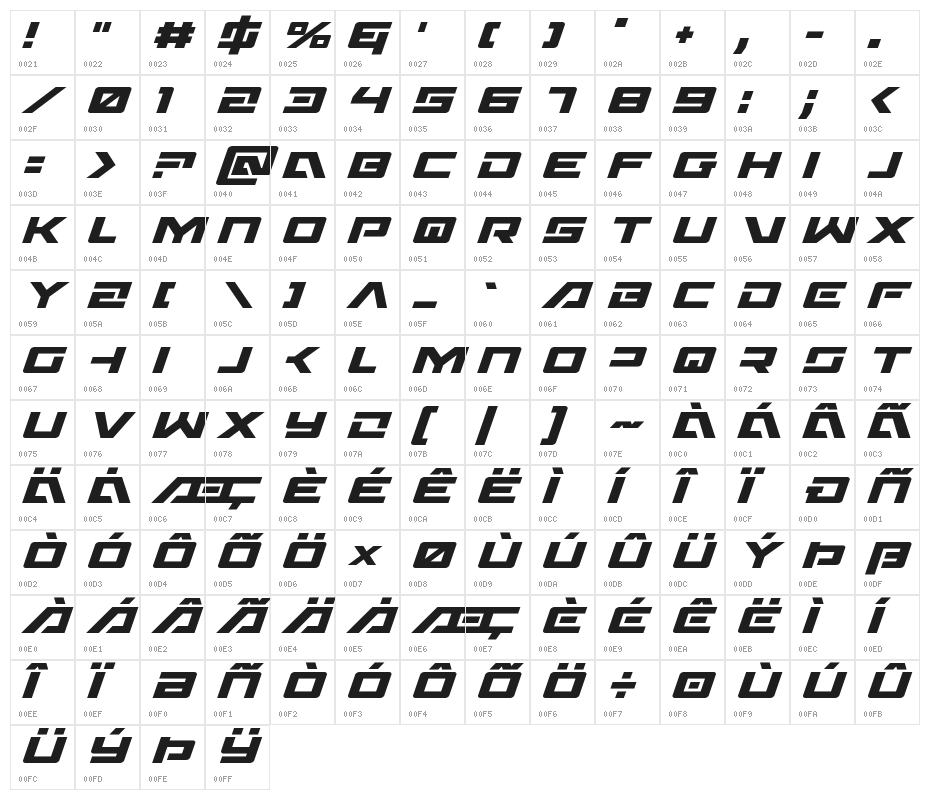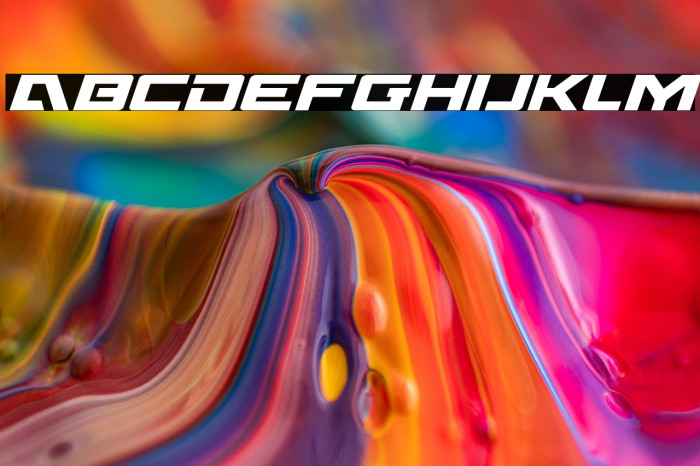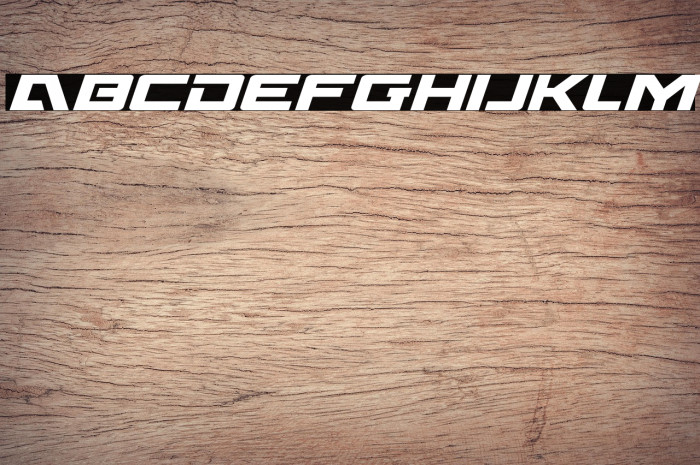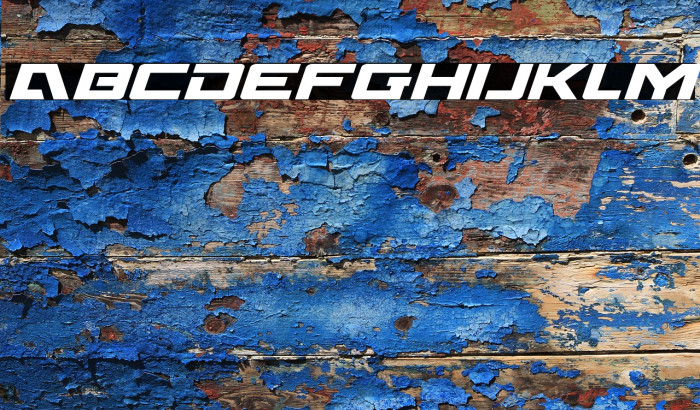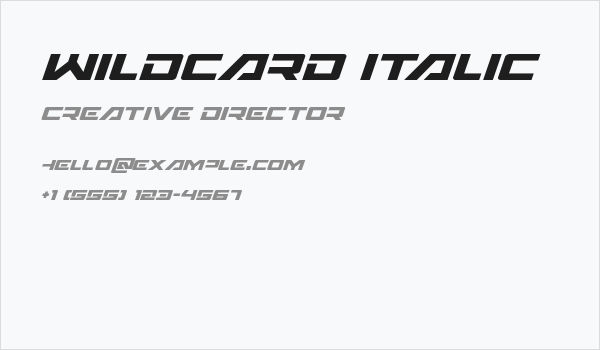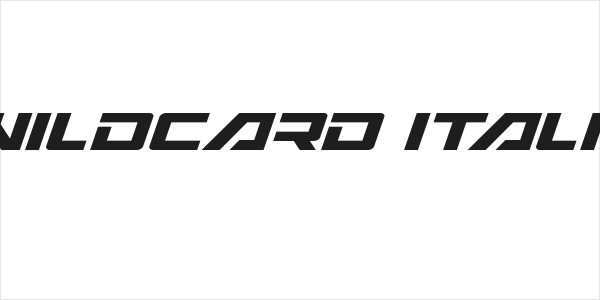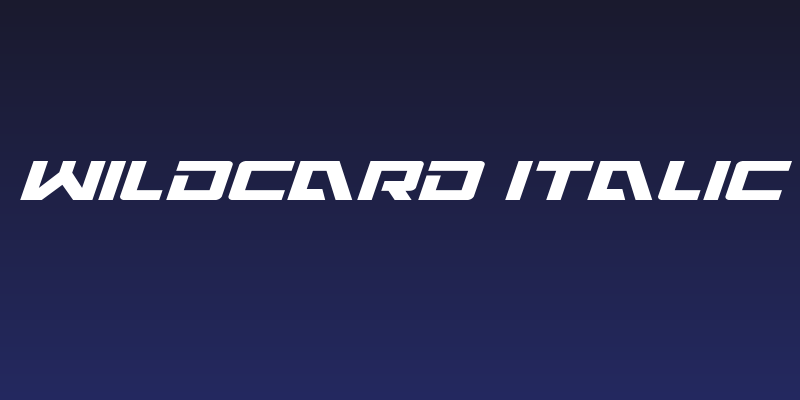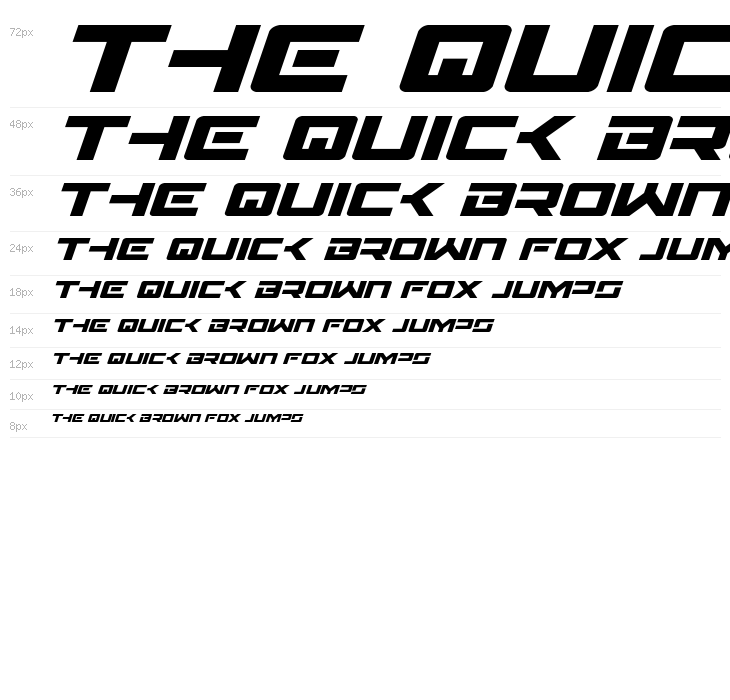
Wildcard Italic Font
Wildcard Italic Description
This font exhibits a bold, italicized style with a futuristic and dynamic appearance. The characters are angular and geometric, featuring sharp edges and a forward-leaning slant that conveys motion and speed. The uppercase letters are distinct with a consistent stroke width, while the lowercase letters maintain the same angular design, ensuring uniformity across the typeface. Numbers and special characters follow the same stylistic cues, making the font versatile for various applications. The overall design is sleek and modern, suitable for projects that require a bold and impactful visual presence.
| Proposed Projects | Ideal for technology branding, sports team logos, video game titles, and sci-fi themed posters. |